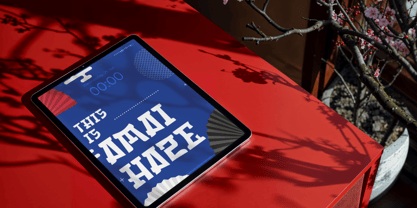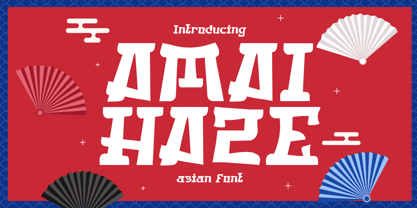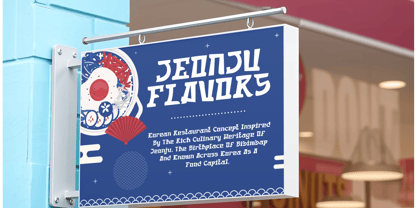
Amai Haze
by Shanaf
The Amai Haze Font Family was designed by Yesie Erma Yunita and published by Shanaf. Amai Haze contains 1 styles.
Amai Haze is a bold and expressive display font inspired by traditional Asian signage and Japanese brush art. This font features angular cuts, sharp terminals, and exaggerated contrast in each letterform, evoking an authentic East Asian visual language with a modern edge. Its geometric block structure is softened by subtle curves and organic brush-like swashes, creating a balanced fusion between tradition and modernity. With uppercase and lowercase styles, numbers, and a wide range of punctuations, Amai Haze provides design flexibility across applications.
Perfectly crafted for logos, food packaging, restaurant branding, posters, and editorial titles, this typeface adds cultural richness and visual intensity to your work. From noodle shop identities to cinematic titles, every character is drawn to capture the spirit of Asian storytelling. The font layout is built for high legibility at display sizes, and the overall form evokes East Asian aesthetics with a contemporary twist. Amai Haze stands out confidently in design environments that demand cultural relevance, dramatic presence, and artistic flair.